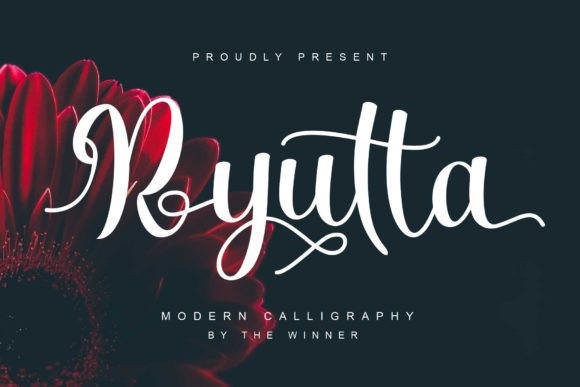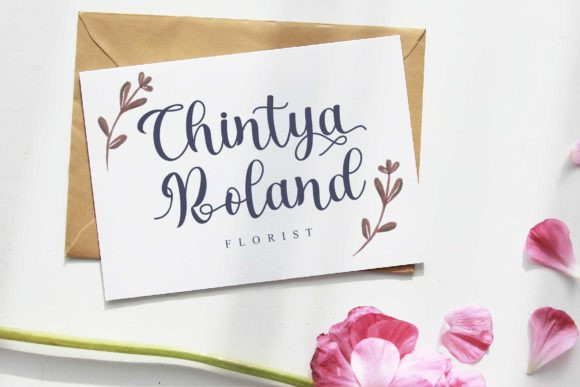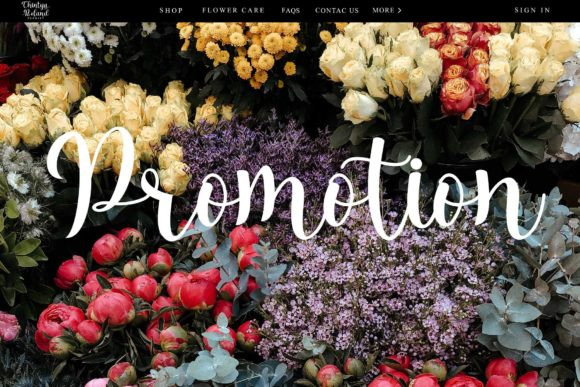
Ryutta Font
Ryutta FontRyutta is an enchanting handwritten font. This versatile script font has a wide spectrum of applications ranging from greeting cards to headlines and is guaranteed to add a romantic feel to your next project.